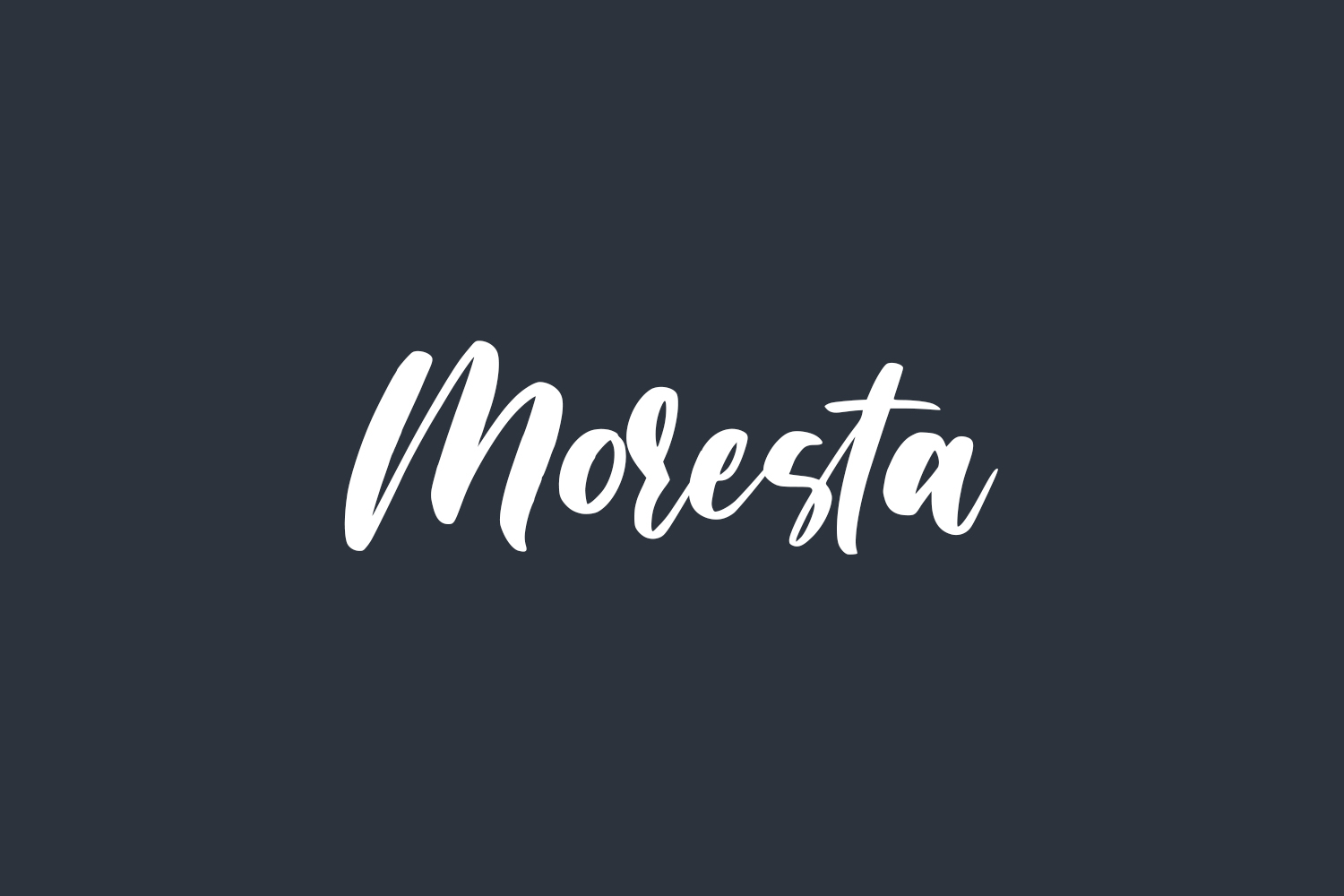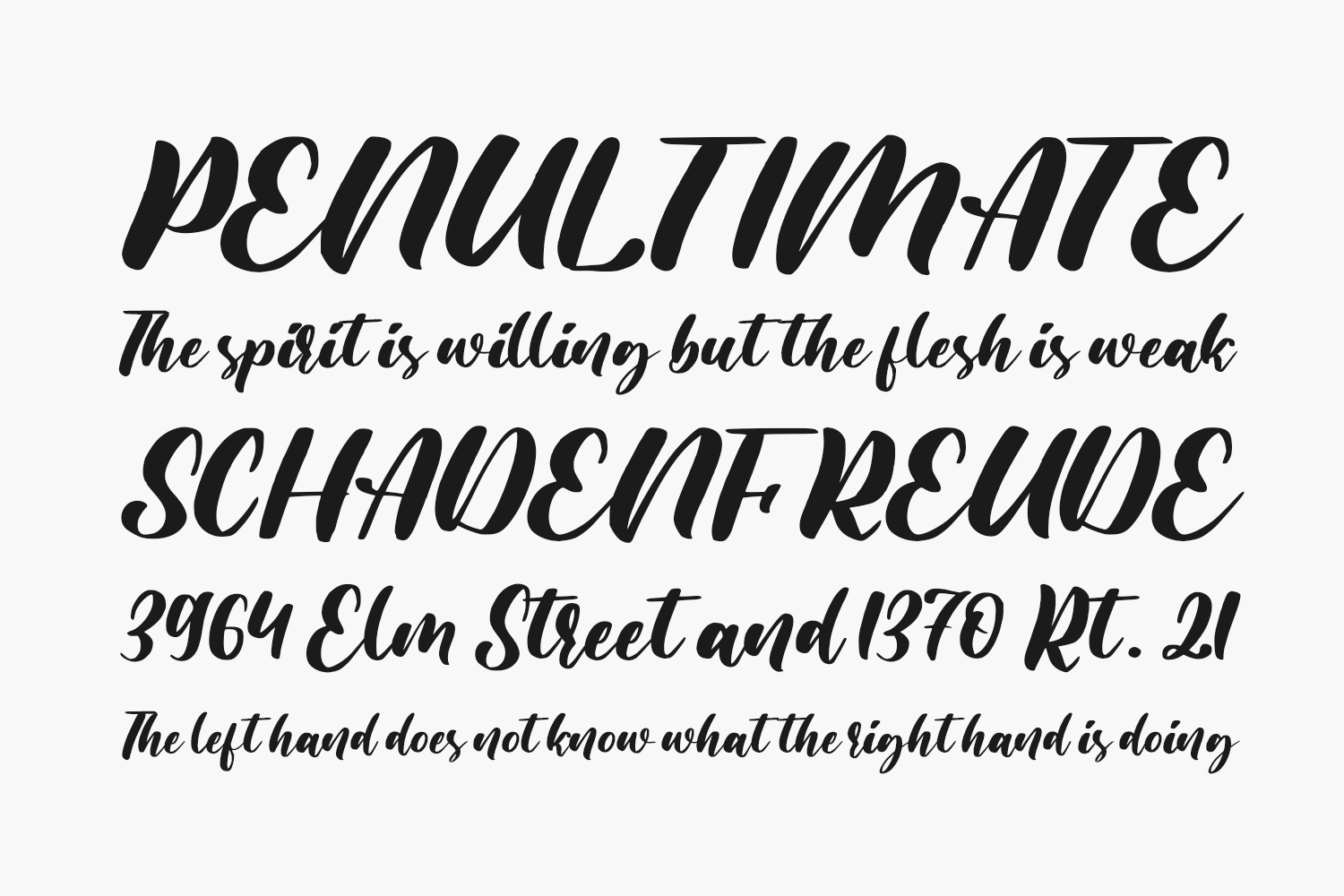
Moresta Free Font is a bold, radiant, and cursive script font. It has beautiful and well-balanced characters and as a result, it matches a wide pool of designs. Add it confidently to your projects, and you won’t be disappointed. Moresta Free Font was designed by FatmaStudio and is free for personal use only. Please purchase the full version for commercial use.